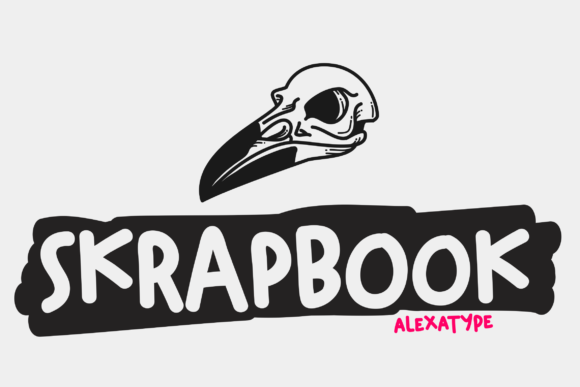
Introducing Skrapbook Font - The Playful Display Font Designed to Spark Creativity
Dive into the world of captivating designs with Skrapbook Font, a creation of alexatypefoundry. This display font is brimming with personality, ready to transform your projects into vibrant expressions of art.
Skrapbook Font's playful and quirky nature makes it the perfect choice for cartoon titles, adding a touch of whimsy and intrigue to your animations. It breathes life into headlines, demanding attention with its bold and eye-catching presence. Posters adorned with Skrapbook Font are sure to command attention, leaving a lasting impression on your audience.
This font family is a versatile chameleon, effortlessly adapting to a wide range of design styles. Whether you're crafting logos that exude a sense of fun and playfulness or creating social media graphics that pop with personality, Skrapbook Font is your trusty companion. Let your imagination run wild as you discover endless possibilities with this remarkable font.